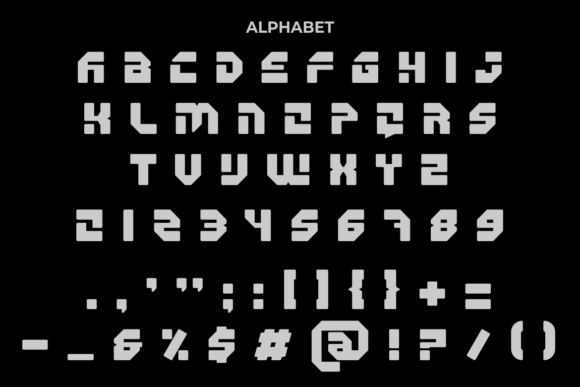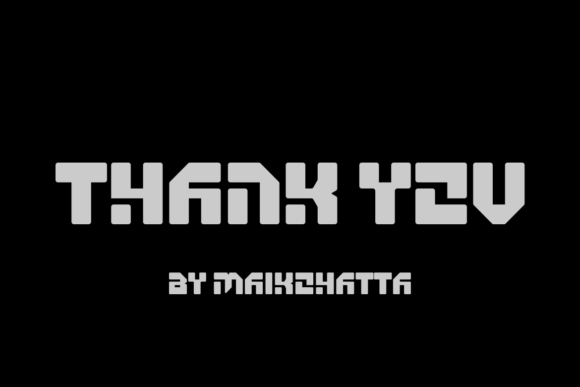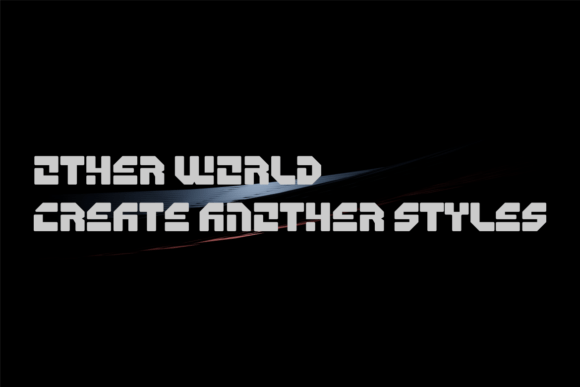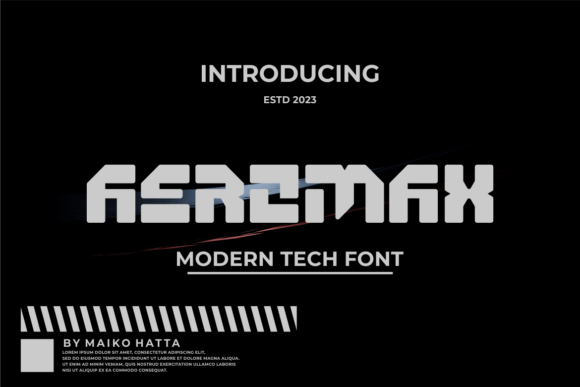
**AEROMAX FONT** – Elevate Your Designs with a Modern and Bold Display Font
In the realm of typography, a font can make or break a design. For designers and crafters seeking a bold and authentic display font to elevate their branding projects, **AEROMAX FONT** emerges as a standout choice. This modern font is meticulously crafted to make a statement, boasting a unique character set that lends itself perfectly to a wide array of applications, from logos and template designs to esport branding and beyond.
Unleash Your Creativity with Aeromax Font
**AEROMAX FONT** is not just any font; it’s an experience. Its bold and authentic style is designed to capture attention and convey strength, making it an ideal choice for designers looking to create a lasting impression. Whether you’re working on a logo that needs to stand out, a template design that requires a modern edge, or an esport branding project that demands dynamism, **AEROMAX FONT** is up to the task.
One of the key advantages of **AEROMAX FONT** is its versatility. It’s a font that can seamlessly adapt to a wide range of contexts, ensuring that your design not only looks great but also feels cohesive and well-thought-out. From digital platforms to print materials, **AEROMAX FONT** maintains its integrity and impact, making it a reliable choice for any project.
Why Choose Aeromax Font?
- Bold and Authentic:
**AEROMAX FONT** offers a bold and authentic style that’s hard to ignore. Its unique character set ensures that your designs stand out in a crowded marketplace.
- Highly Versatile:
This font is designed to be versatile, suitable for a variety of projects including logos, template designs, esport branding, and more.
- Easy to Read:
Despite its bold nature, **AEROMAX FONT** remains clear and easy to read, making it perfect for both digital and print applications.
- Modern Aesthetic:
With its modern design, **AEROMAX FONT** brings a fresh and contemporary feel to any project, ensuring it feels current and relevant.
Applications of Aeromax Font
The applications of **AEROMAX FONT** are vast and varied. Here are a few ideas to get you started:
- Logo Design:
Create a memorable logo that stands out with **AEROMAX FONT**. Its bold and authentic style ensures your brand makes a lasting impression.
- Template Design:
Elevate your template designs with a modern and dynamic font. **AEROMAX FONT** is perfect for brochures, flyers, posters, and more.
- Esport Branding:
In the fast-paced world of esport, **AEROMAX FONT** can help your brand stand out. Its modern and bold style is sure to capture the attention of gamers and fans alike.
- Digital Content:
From website headers to social media graphics, **AEROMAX FONT** can add a professional and modern touch to your digital content.
In conclusion, **AEROMAX FONT** is a powerful tool for designers and crafters looking to elevate their branding projects. Its bold and authentic style, combined with its versatility and modern aesthetic, makes it an excellent choice for a wide range of applications. Whether you’re creating a logo, designing a template, or developing an esport brand, **AEROMAX FONT** is sure to make a statement. So why settle for ordinary when you can make a statement with **AEROMAX FONT**?
Embark on your design journey with **AEROMAX FONT** today and discover the impact a bold and authentic display font can have on your projects.